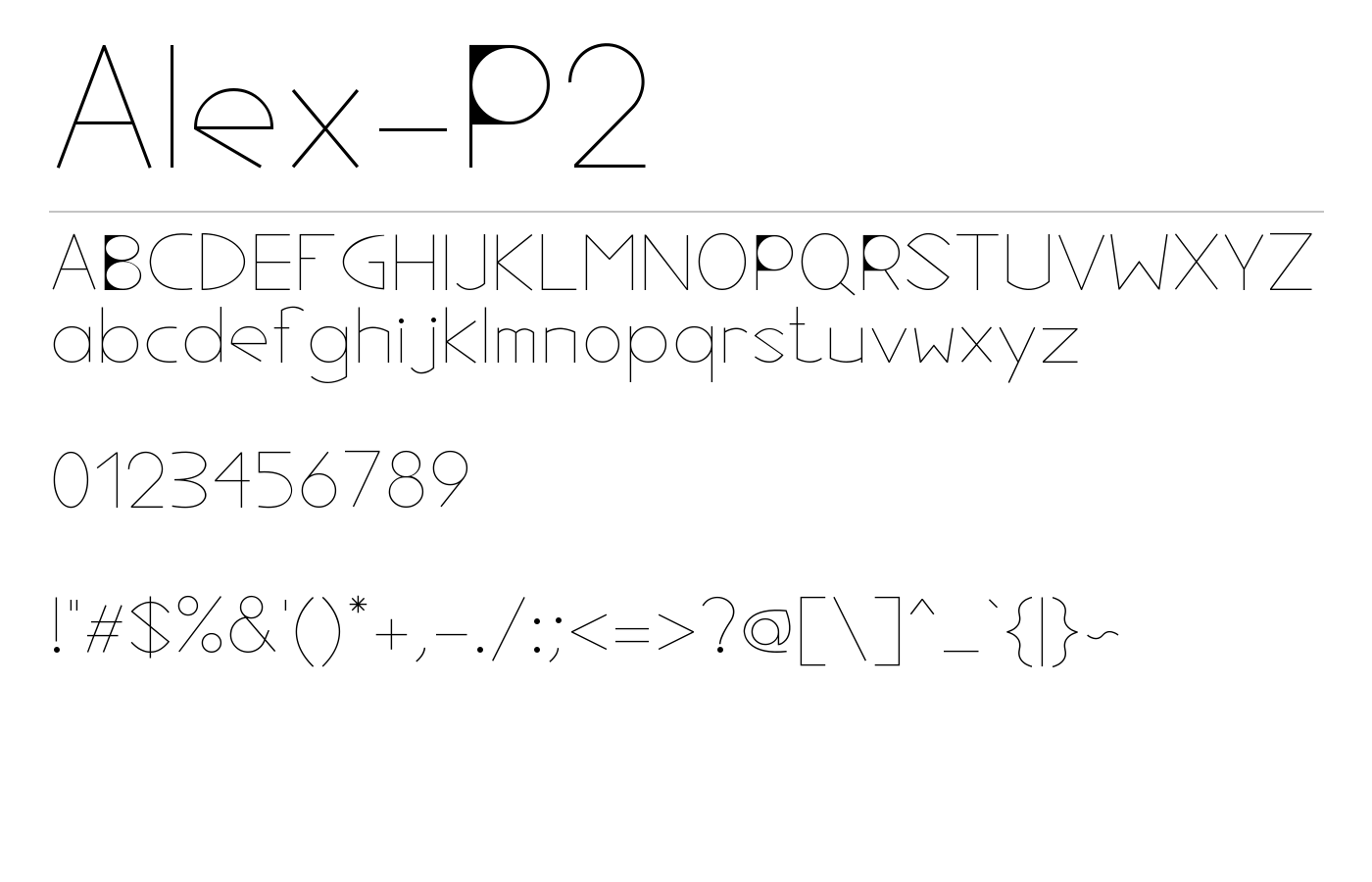
Alex-P2 is a delicate, modern sans serif font characterized by its ultra-thin, geometric lines and minimalist design. Its elegant and airy letterforms, combined with distinctive rounded and hollow elements in certain characters, give it a sophisticated yet contemporary feel, making it ideal for fashion branding, high-end editorial design, and stylish digital projects. This font works best in large sizes for headlines and logos where its unique shapes can stand out clearly.
Alex-P2 Font
About Alex-P2 Font
| Font family | Alex-P2 Font |
| Designer | Alex P |
| Font subfamily | ExtraLight |